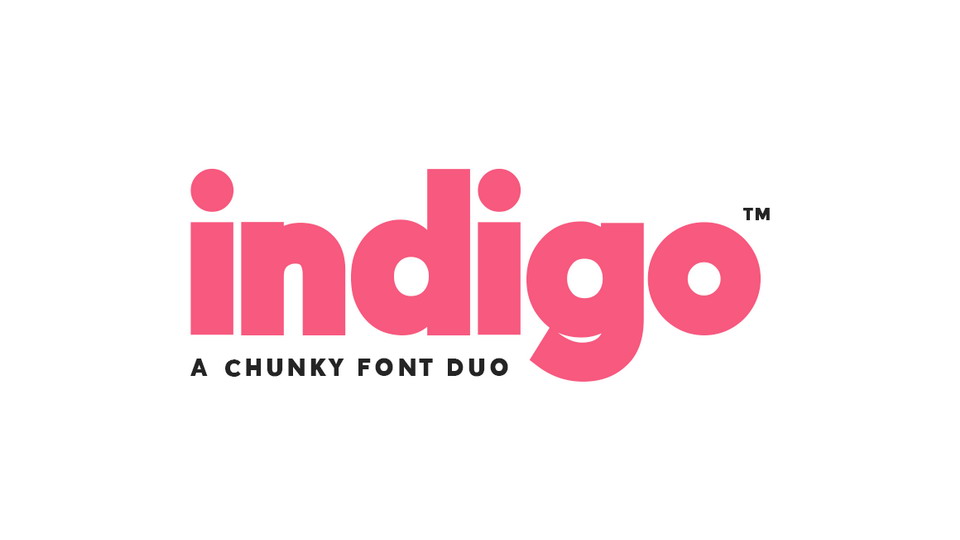
Indigo Font Family › Fontesk – Download Grátis
Download Indigo typeface, a fab combo of the sans serif ‘Indigo Regular’ and the outline version ‘Indigo Outline’. Combine the two for sophisticated yet edgy designs or be bold enough to use them alone.
Designer: Free Design Club